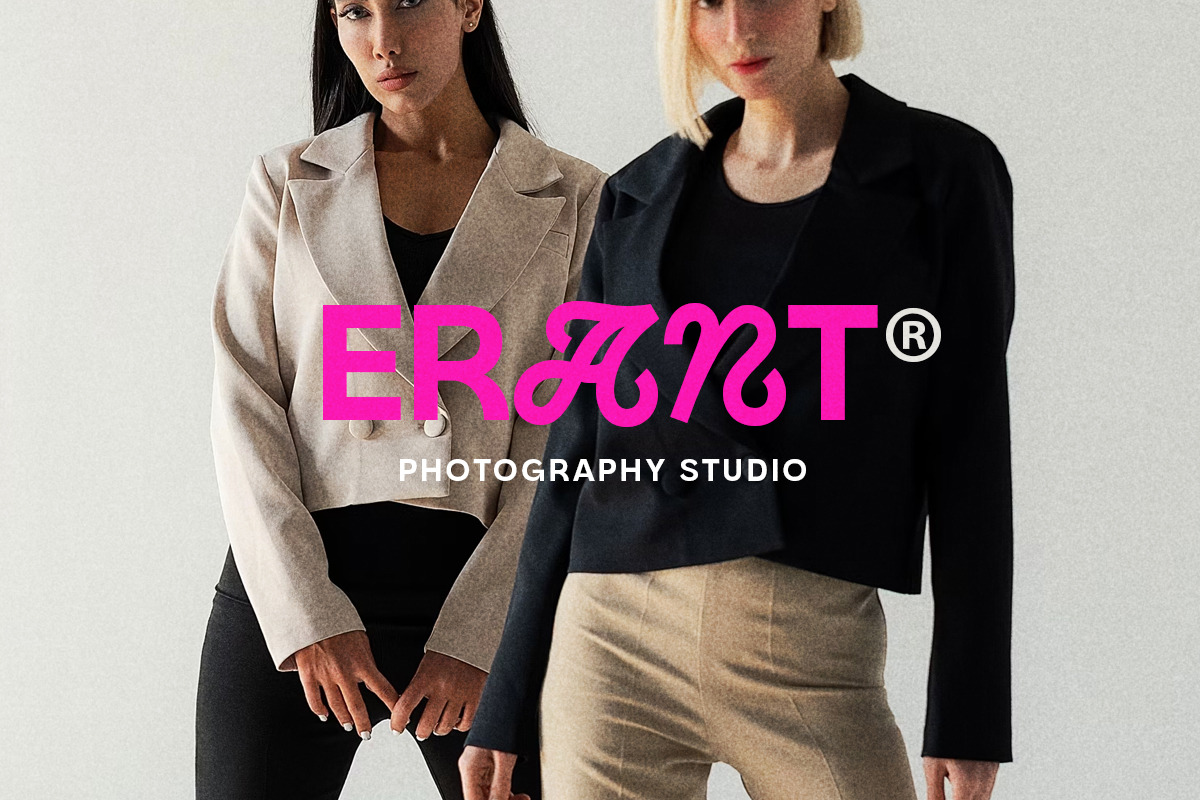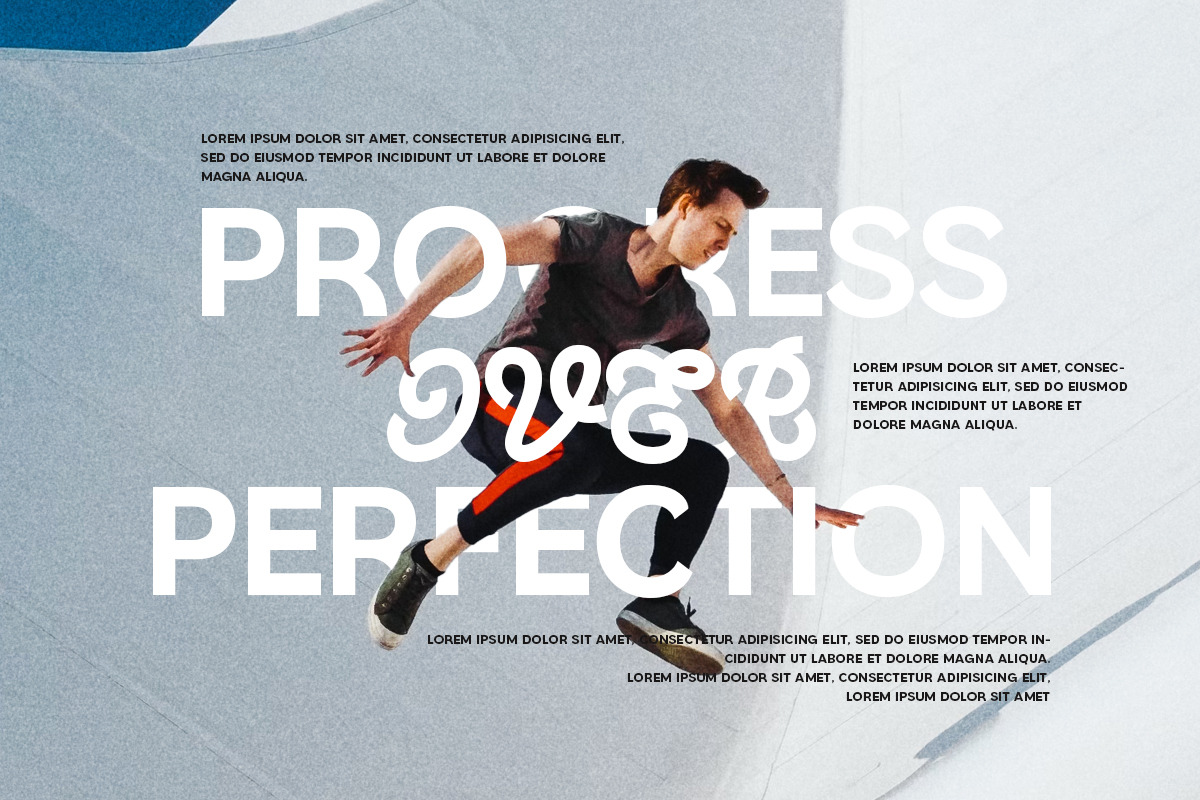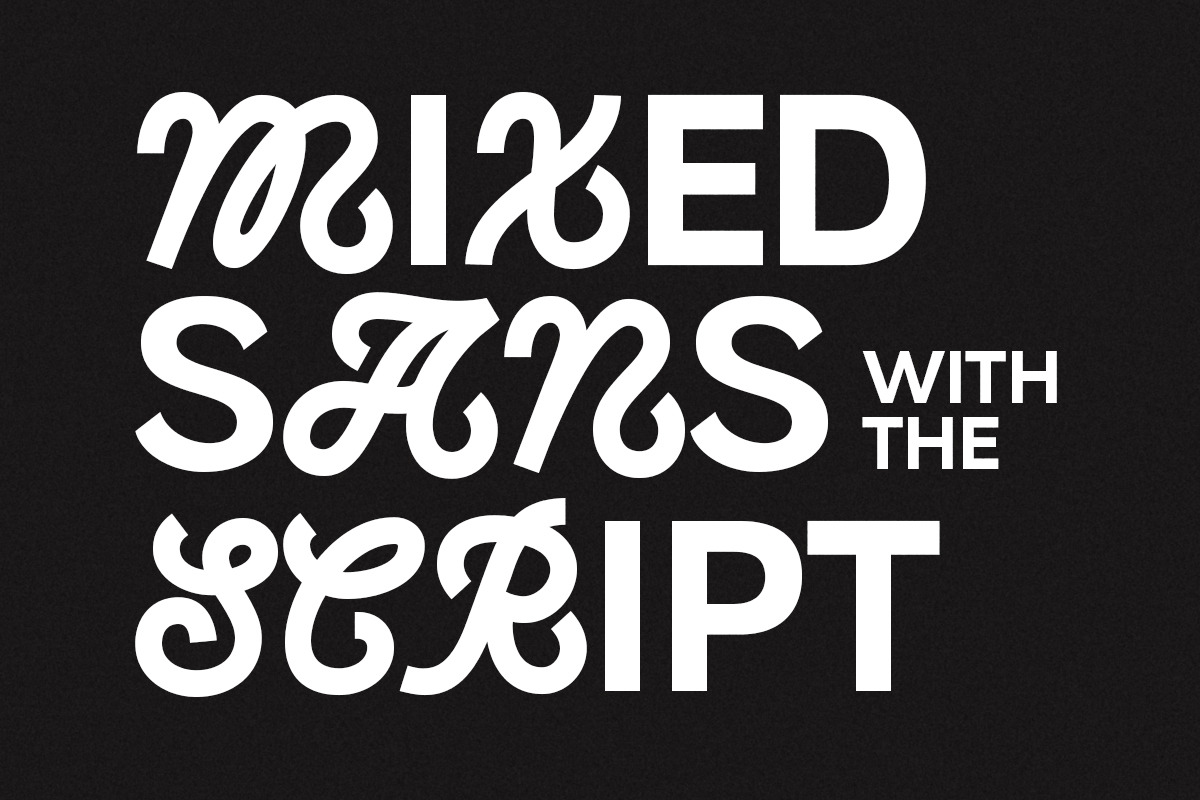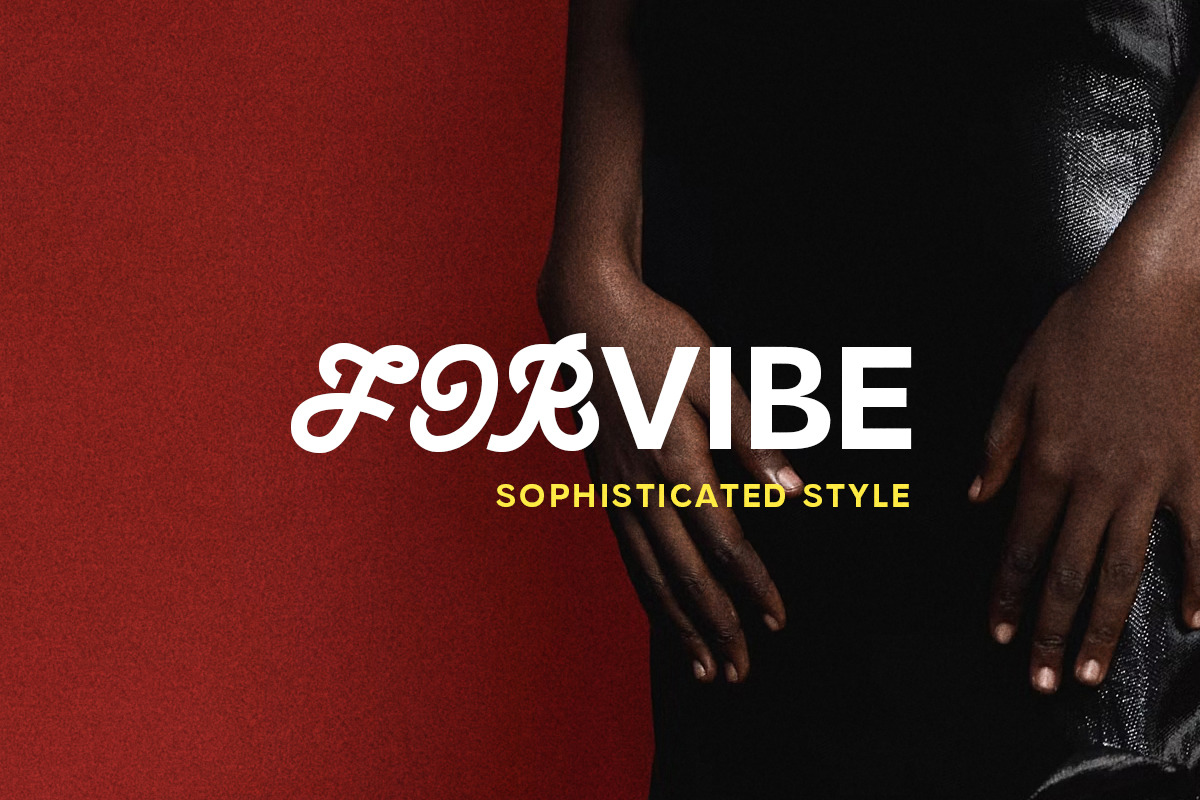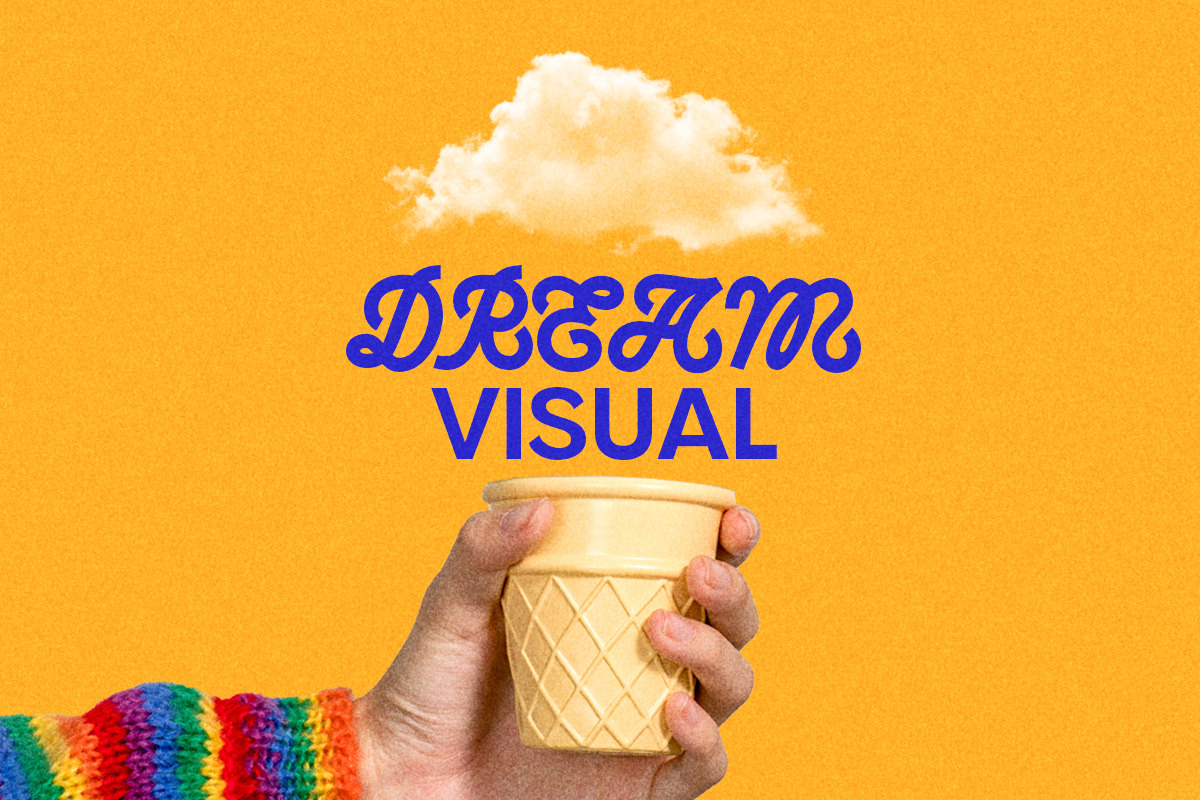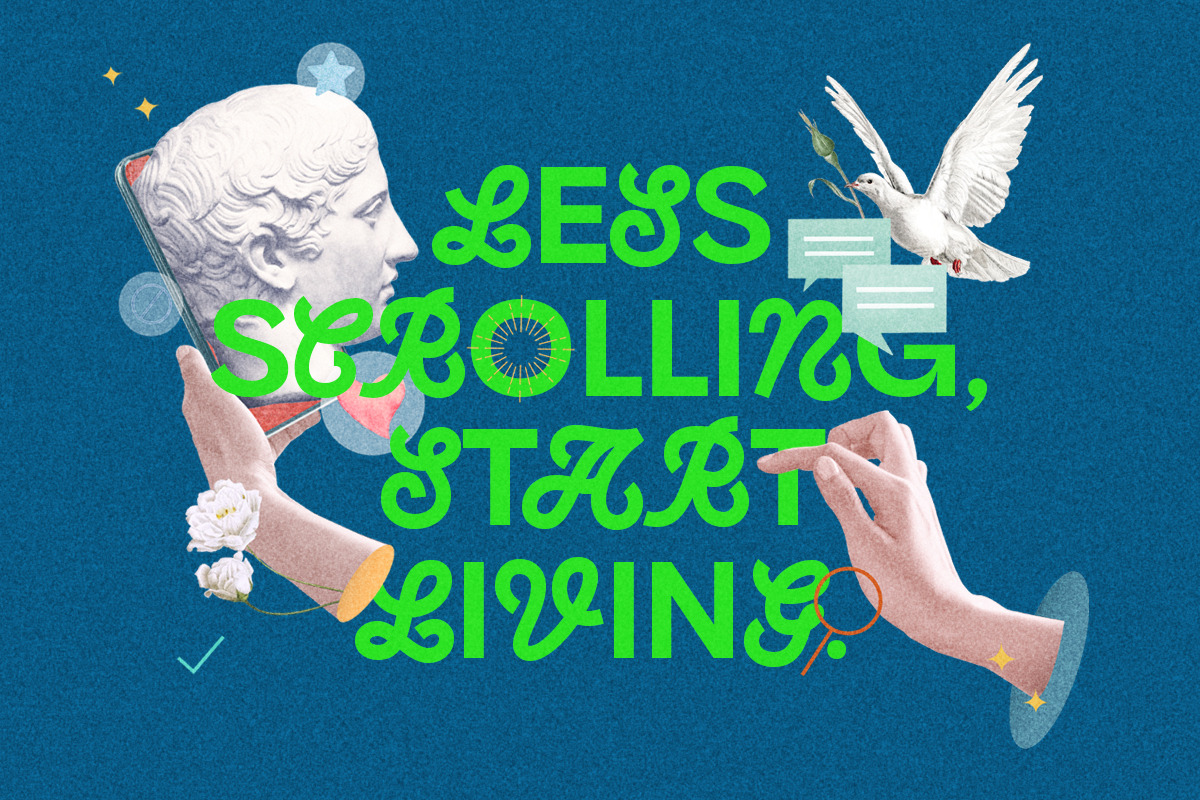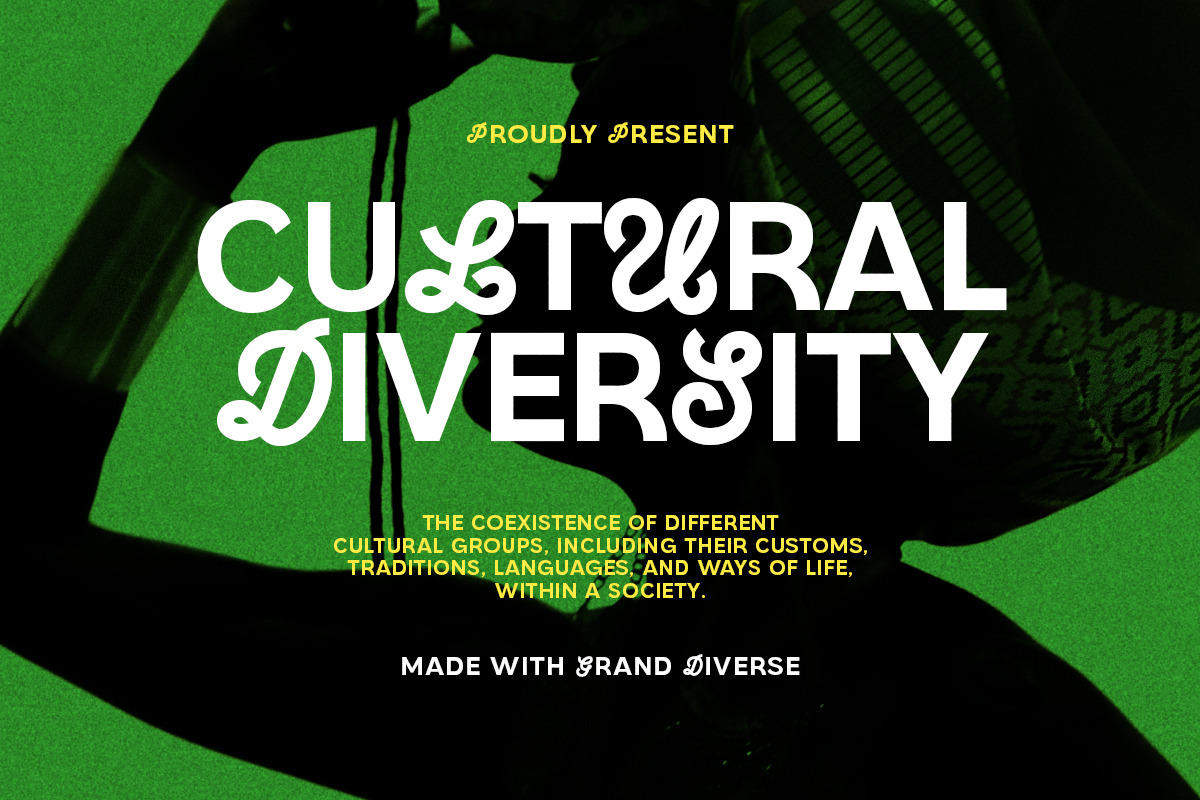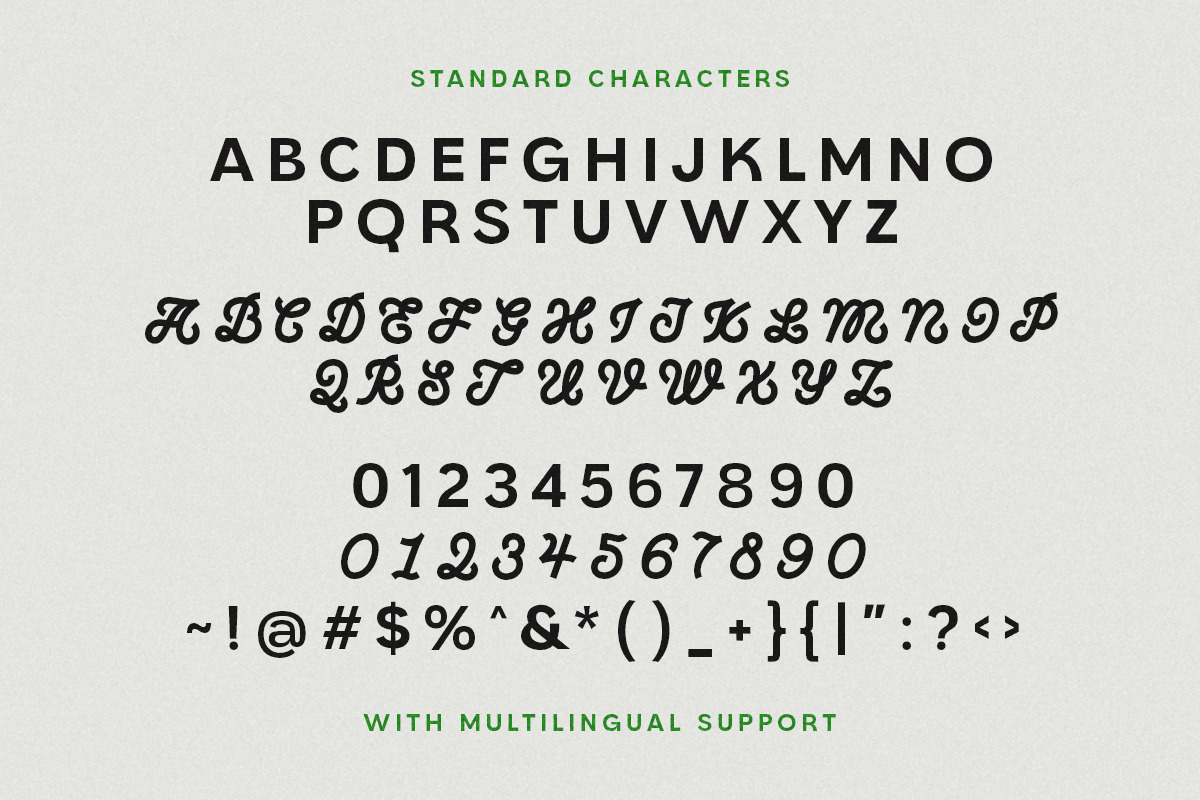
Grand Diverse Experimental Sans
Grand Diverse is a bold and experimental mixed-style font that combines elegant curves with geometric forms, offering a unique and versatile aesthetic. Perfect for creative projects like branding, headlines, posters, and editorial designs, its modern-vintage vibe makes it ideal for adding a distinctive and artistic touch. Grand Diverse shines in mix-and-match layouts, delivering a balance of sophistication and playfulness that captures attention effortlessly.
- Alternates Characters